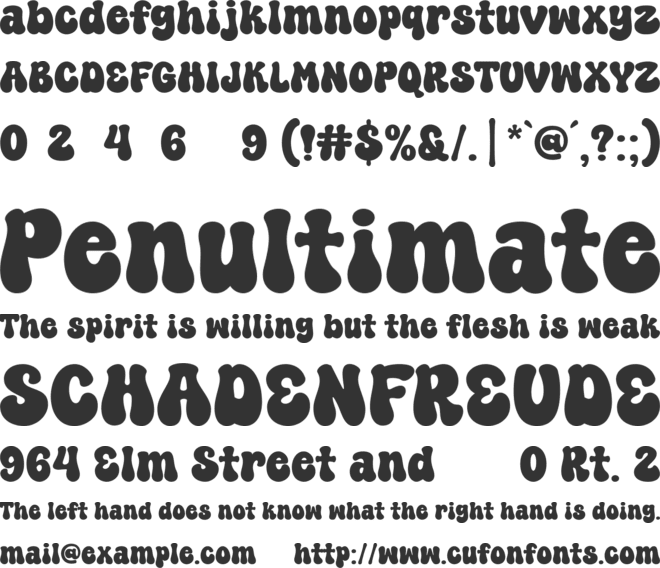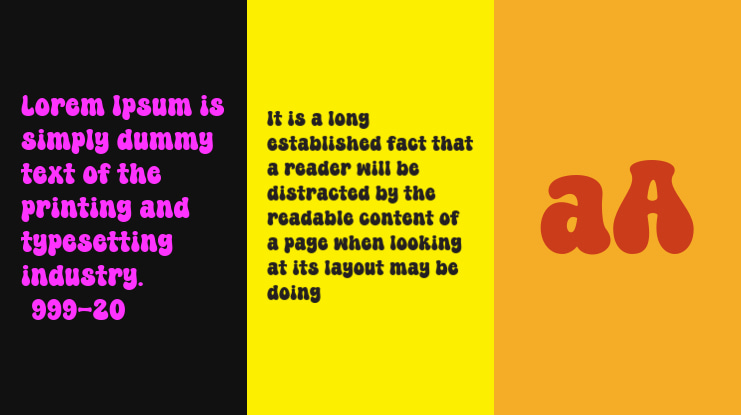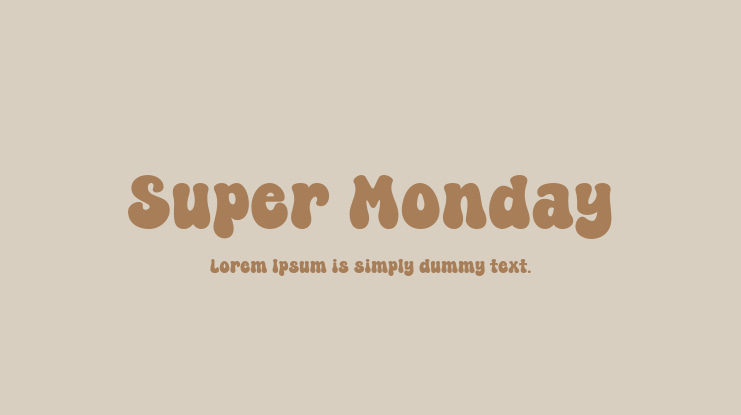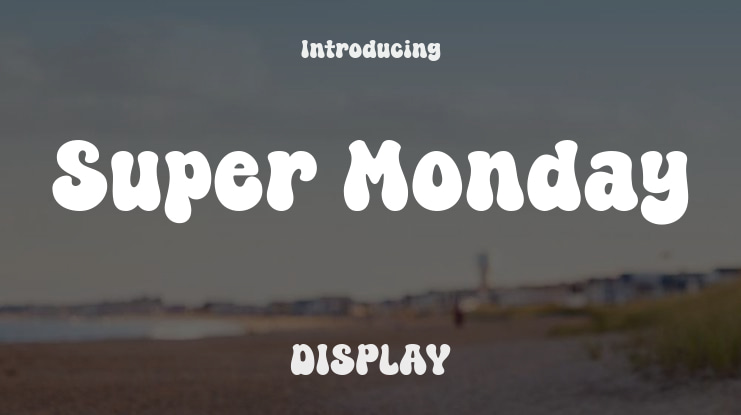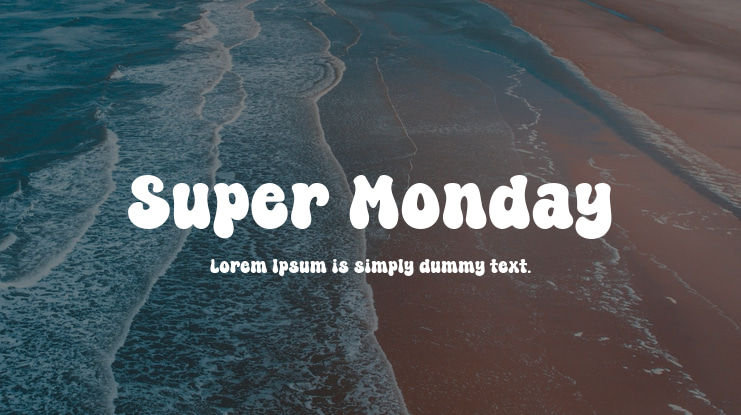
Super Monday Font
Embrace a groovy vibe with Super Monday! This fun and hand-lettered font brings a burst of sunshine to your designs. With its playful and bubbly characters, this font exudes a casual retro charm, ideal for infusing quotes, logos, packaging, and more with a nostalgic touch.